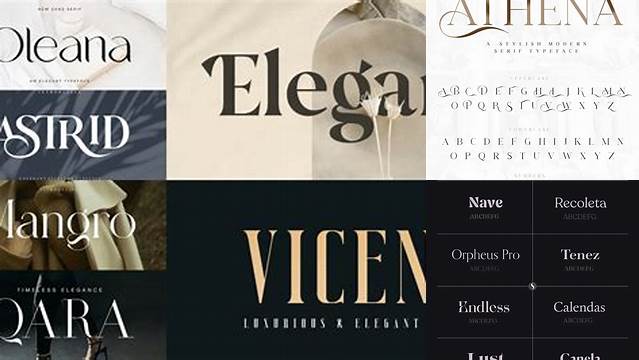
Elegant Fonts On Fontspace: Your Guide To Stylish Typography
Hey guys! Are you on the hunt for the perfect elegant font on Fontspace to elevate your design projects? You've come to the right place. In this article, we'll dive deep into the world of elegant fonts available on Fontspace, exploring their characteristics, best uses, and how to find the ideal one for your needs. Whether you're designing a wedding invitation, crafting a brand identity, or simply looking to add a touch of sophistication to your work, understanding the nuances of elegant fonts is key. So, let's get started and unlock the secrets to beautiful typography!
Understanding the Essence of Elegant Fonts
What exactly makes a font "elegant"? It's more than just looking pretty; it's about conveying a sense of refinement, grace, and sophistication. An elegant font often features delicate lines, subtle curves, and a balanced overall design. Think about the fonts you see in high-end fashion magazines or luxury brand logos – those are often excellent examples of elegant typography in action. But beyond these aesthetic qualities, elegant fonts also need to be legible and functional. After all, even the most beautiful font is useless if no one can read it! Understanding this balance is crucial in selecting the right font for your projects. Consider the context, the target audience, and the message you want to convey. A font that works perfectly for a wedding invitation might not be suitable for a corporate report, for instance. So, take the time to explore different options and find the font that truly embodies the elegance you're aiming for.
Exploring Serif Fonts for an Elegant Touch
Serif fonts, with their small decorative strokes at the end of each letter, are often associated with tradition and elegance. Within the realm of elegant fonts, serifs hold a special place due to their classic appeal and readability. Fonts like Times New Roman, Garamond, and Baskerville are timeless examples that exude sophistication. These fonts work beautifully in print, lending a sense of authority and refinement to books, magazines, and formal documents. When choosing a serif font for elegance, pay attention to the weight and contrast of the strokes. Lighter weights tend to look more delicate, while higher contrast between thick and thin strokes can add visual interest. However, be mindful of screen readability. Some highly detailed serif fonts may not render well at small sizes on digital displays. For digital applications, consider serifs with slightly bolder strokes or optimized for web use. Ultimately, the key is to select a serif font that strikes the perfect balance between elegance and functionality, ensuring that your message is both beautiful and clear. When designing with these elegant fonts remember the white space too.
Diving into Script Fonts for a Touch of Flair
Script fonts, mimicking the fluidity of handwriting, can add a touch of personality and elegant font flair to your designs. From formal calligraphy to playful brushstrokes, script fonts offer a wide range of styles to suit different moods and aesthetics. However, with great power comes great responsibility. Script fonts can be tricky to use effectively, especially when it comes to legibility. Overly ornate or intricate scripts can be difficult to read, particularly in large blocks of text. It's generally best to reserve script fonts for headings, titles, or short phrases where their visual impact can shine without compromising readability. When selecting a script font, consider the overall tone you want to convey. A formal calligraphy script might be perfect for a wedding invitation, while a more casual brush script could work well for a blog header. Also, pay attention to the spacing between letters (kerning) to ensure that the script flows smoothly and naturally. With careful consideration and a touch of creativity, script fonts can be a powerful tool for adding elegance and personality to your designs. Make sure to check the elegant fonts are appropriate for all mediums before publishing.
Modern and Minimalist Elegant Fonts
The world of elegant fonts isn't limited to traditional serifs and flowing scripts. Modern and minimalist fonts can also exude elegance through their simplicity and clean lines. These fonts often feature geometric shapes, subtle curves, and a focus on negative space. Think about fonts like Futura, Helvetica, and Avenir – these are all excellent examples of modern elegance in typography. These fonts work particularly well in contemporary designs, lending a sense of sophistication and understated style. When choosing a modern font for elegance, pay attention to the overall balance and harmony of the letterforms. Look for fonts with consistent stroke weights and a clear, uncluttered design. Also, consider the font's versatility. A truly elegant modern font should work well in a variety of contexts, from headlines to body text. By embracing the power of simplicity, you can create designs that are both elegant and timeless. Don't be afraid to pair these elegant fonts with more detailed imagery to add another layer to your work.
Utilizing Elegant Fonts for Wedding Invitations
Wedding invitations are a perfect canvas for showcasing elegant font typography. The fonts you choose can set the tone for the entire event, conveying a sense of formality, romance, and sophistication. When selecting fonts for wedding invitations, consider the overall style and theme of the wedding. A formal wedding might call for a classic serif font or an elegant calligraphy script, while a more modern wedding could benefit from a clean sans-serif font or a minimalist script. It's also important to consider the readability of the fonts. Wedding invitations often contain a lot of information, so you need to make sure that the fonts are easy to read, even at small sizes. Avoid overly ornate or intricate fonts that can be difficult to decipher. Instead, opt for fonts that are clear, legible, and visually appealing. You can also use different fonts for different elements of the invitation. For example, you might use a script font for the names of the bride and groom and a serif font for the body text. Just make sure that the fonts complement each other and create a cohesive overall design. When done well, elegant fonts can transform a simple wedding invitation into a stunning keepsake.
Incorporating Elegant Fonts in Logo Design
Your logo is the face of your brand, and the fonts you choose play a crucial role in conveying your brand's personality and values. Elegant fonts can be particularly effective in logo design, especially for brands that want to project a sense of sophistication, luxury, or refinement. When incorporating elegant fonts in logo design, consider the overall brand identity and target audience. A high-end fashion brand might opt for a sleek, modern serif font, while a boutique bakery could choose a whimsical script font. It's also important to consider the versatility of the font. Your logo will likely be used in a variety of contexts, from website headers to business cards, so you need to choose a font that looks good in both large and small sizes. Avoid fonts that are too trendy or overly stylized, as they may become dated quickly. Instead, opt for classic, timeless fonts that will stand the test of time. You can also customize the font to create a unique and memorable logo. Experiment with different weights, styles, and letter spacing to achieve the desired look and feel. With careful consideration and a touch of creativity, elegant fonts can help you create a logo that truly embodies your brand's essence. Make sure that the logo with your elegant fonts is recognizable across all platforms.
Designing Websites with Elegant Typography
Typography is a key element of web design, influencing both the aesthetics and usability of your site. Elegant fonts can elevate the visual appeal of your website, creating a sense of sophistication and professionalism. When designing websites with elegant typography, it's important to consider both the font's visual impact and its readability. Choose fonts that are easy to read on screen, even at small sizes. Avoid overly ornate or intricate fonts that can strain the eyes. Instead, opt for fonts with clear, well-defined letterforms and ample spacing. You can also use different fonts for different elements of the page. For example, you might use a bold sans-serif font for headings and a clean serif font for body text. Just make sure that the fonts complement each other and create a cohesive visual hierarchy. Pay attention to line height and letter spacing to improve readability. Adjusting these settings can make a big difference in how comfortable your website is to read. Also, consider using web-safe fonts or embedding custom fonts using services like Google Fonts or Adobe Fonts. This will ensure that your website looks consistent across different browsers and devices. With careful planning and attention to detail, elegant fonts can transform your website into a visually stunning and user-friendly experience.
Creating Marketing Materials with Classy Fonts
Conclusion: Mastering Elegant Fonts for Timeless Design
Mastering elegant fonts is a journey that combines knowledge, skill, and creativity. By understanding the principles of typography, exploring different font styles, and practicing your craft, you can create timeless designs that are both beautiful and effective. Remember to choose fonts that align with your brand's identity, maintain brand consistency across platforms, and respect font licenses and attributions. Embrace subtlety, prioritize readability, and experiment with font pairings to elevate your designs. Stay curious, continue learning, and always strive for excellence. With dedication and passion, you can become a master of elegant font and create designs that leave a lasting impression. If you ever have questions, just ask fellow designer.